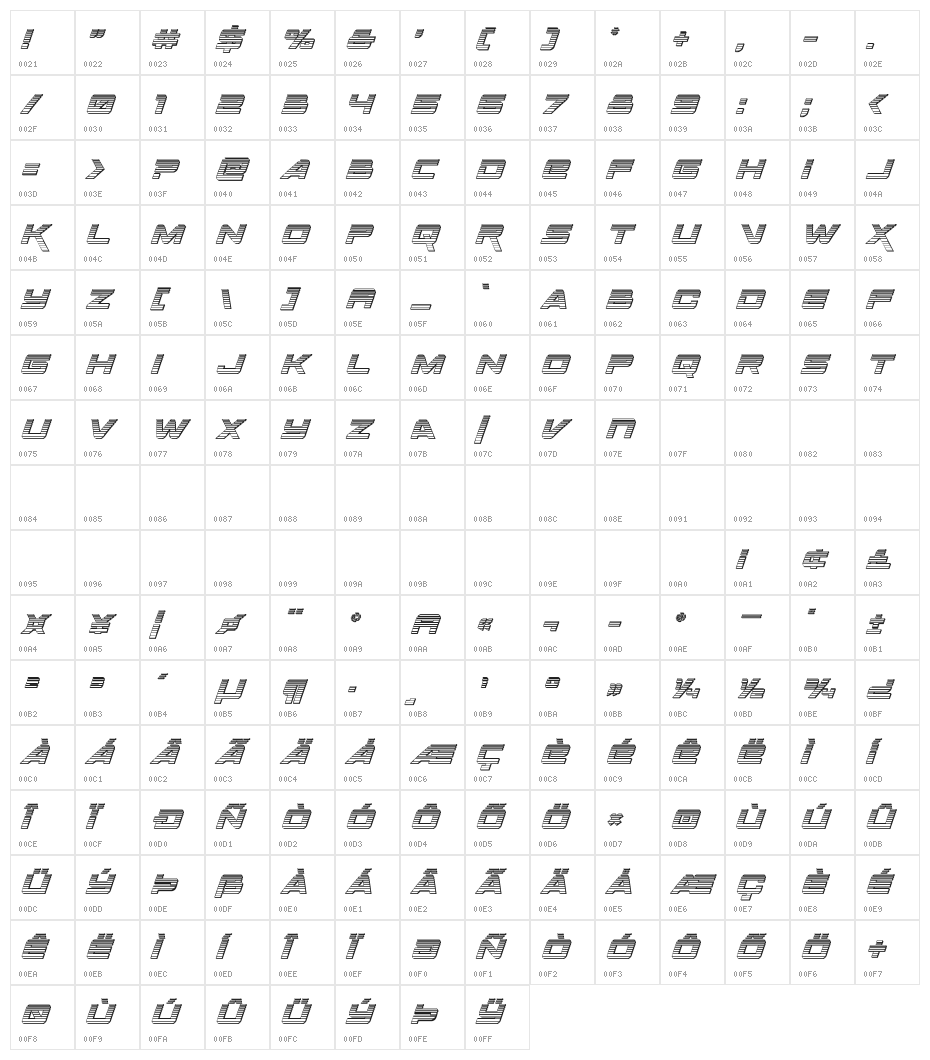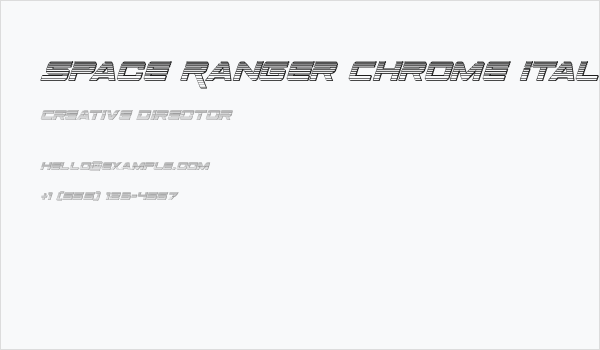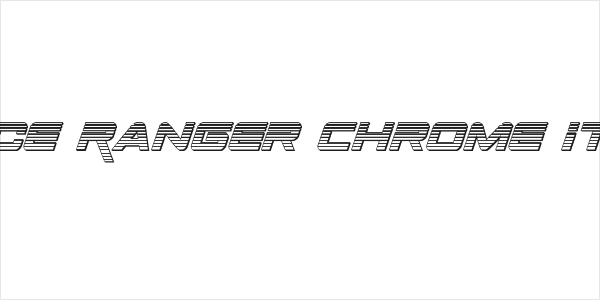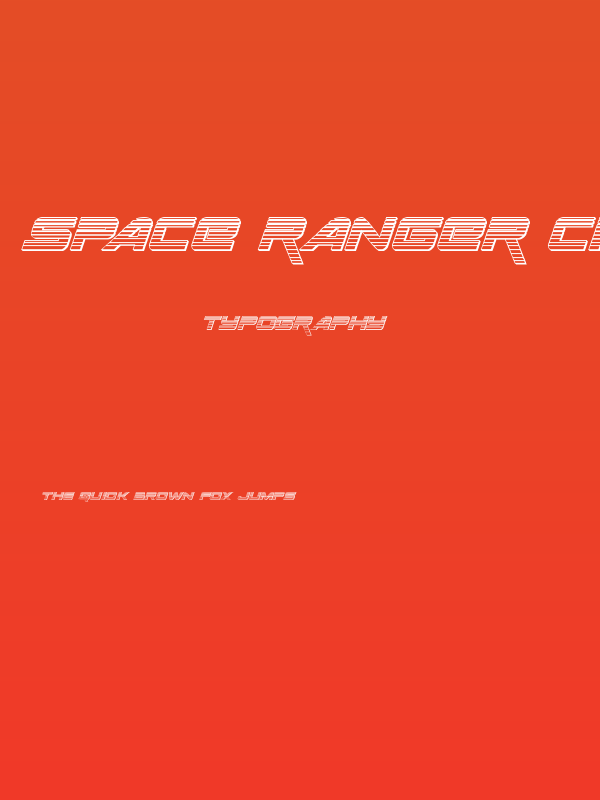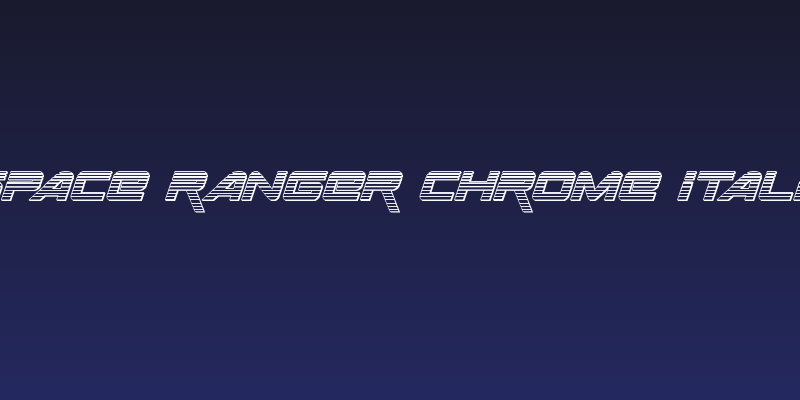
Space Ranger Chrome Italic Font
Space Ranger Chrome Italic Description
This font features a futuristic and dynamic design with a distinct chrome-like appearance. The characters are italicized and composed of multiple horizontal lines that create a sense of movement and depth. The uppercase and lowercase letters maintain a consistent style, with sharp angles and geometric shapes that enhance its modern aesthetic. The numbers and special characters follow the same design principles, ensuring uniformity across all glyphs. This font's unique style makes it stand out, suitable for projects that require a bold and eye-catching typeface.
| Proposed Projects | Ideal for sci-fi themed posters, video game titles, futuristic branding, and technology-related projects. |